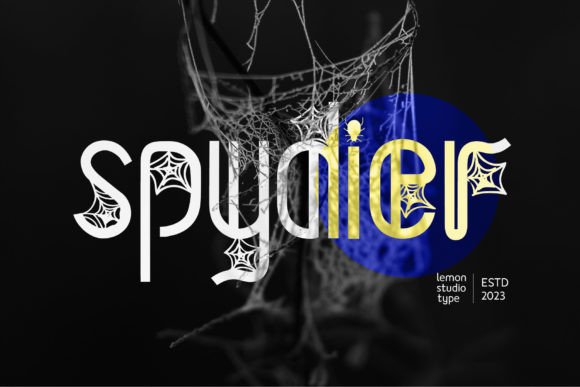
Introducing Spydier Font, the ultimate choice for web app enthusiasts seeking the best font to elevate their design projects. Created by the talented WildaKhairunnisa, this cool decorative font is unlike anything you've ever seen before. With its intricate spider web-inspired design, Spydier Font is guaranteed to captivate and leave a lasting impression on your audience.
Dare to stand out from the crowd? Spydier Font is your secret weapon. Its hypnotizing allure will instantly draw attention to your web app, making it impossible for users to look away. Whether you're creating a website, logo, or promotional materials, this font guarantees a unique and eye-catching accent that will set you apart from the competition.
Imagine the impact of Spydier Font on your design projects. Its intricate and mesmerizing spider web patterns effortlessly convey a sense of intrigue and mystery. Your users won't be able to resist exploring every corner of your web app, driven by the desire to unravel the hidden secrets within the stunning typography.
Not only does Spydier Font add a touch of elegance and sophistication, but it also delivers a powerful emotional connection. Its unconventional design evokes a sense of adventure, inviting users to embark on a journey through your web app. Whether you're aiming to create a sense of excitement, curiosity, or even a touch of darkness, this font is your ultimate ally.